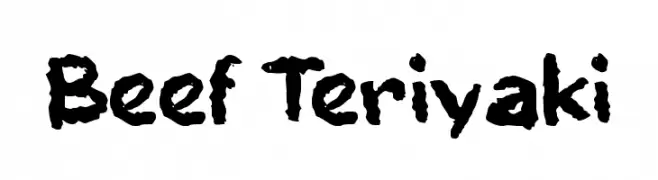
• Breaking Abuse
A bold, distressed font with a rugged, brush-painted appearance.
• DASAR NEGARA
A bold, textured brush-style font with a hand-painted look.
• Cukil
A bold, distressed font with a hand-painted, textured appearance.
• Drastic
A bold, rugged font with a distressed, hand-painted look.
• {Bee Pollen}
A bold, hand-painted font with textured, brush-like strokes.
• Barefoot
A bold, hand-painted style font with expressive, irregular strokes.
• Burger Green
A bold, brush-style font with a playful, hand-painted appearance.
• Cangkok
A bold, hand-painted style font with an expressive and dynamic look.
• CAESAR SALAD
A bold, hand-painted style font with a playful and dynamic appearance.
• Beef Teriyaki
A bold, textured font with a hand-painted, energetic style.